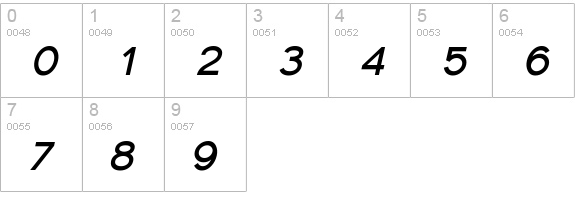
Florencesans Bold Italic is a strong, high-contrast, italic variant in the Florencesans typeface family \xE2\x80\x94 well suited to headlines, attention-grabbing titles, and strong calls-to-action.
Florencesans Bold Italic is a dynamic and modern font that exudes sophistication and elegance. Its bold weight combined with the distinctive italic styling adds a touch of flair to any design project. The sharp, clean lines of Florencesans Bold Italic make it perfect for headlines, branding, and other attention-grabbing elements. This versatile font is ideal for creating striking visuals that demand attention. Whether used in print or digital media, Florencesans Bold Italic brings a sense of contemporary style and professionalism to any design. Best of all, Florencesans Bold Italic is available for free download at FontsMarket.com. With just a few clicks, you can add this stunning font to your collection and start using it in your projects right away. Don't miss out on the opportunity to enhance your designs with the bold and italic beauty of Florencesans Bold Italic – download it for free today!